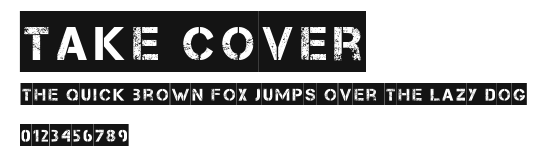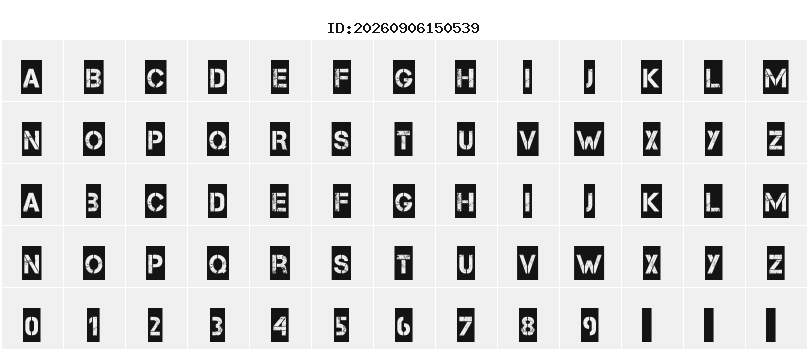
• Font Name: Take Cover
About Take Cover.ttf
Take Cover.ttf is a modern, elegant sans-serif font designed for ultimate readability and visual harmony. Perfect for branding, headlines, web design, and print materials.